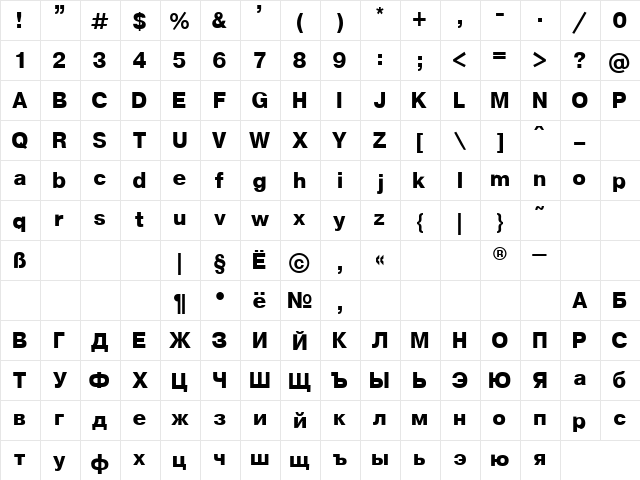
Geneva Bold
Design Context for Geneva Typeface
Geneva is a composed and adaptable typeface that performs quietly and consistently across a wide range of design contexts. Its bold stroke weight gives it real presence on the page.